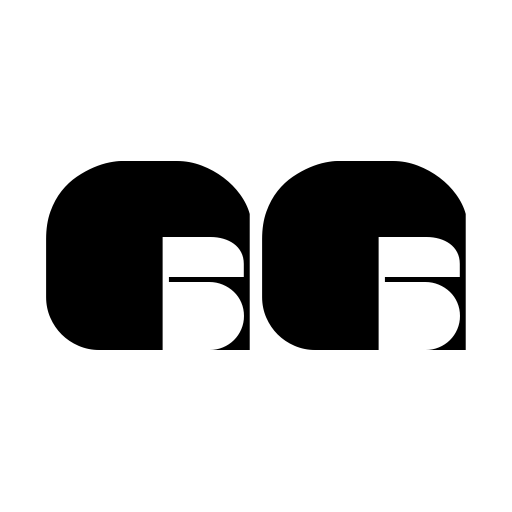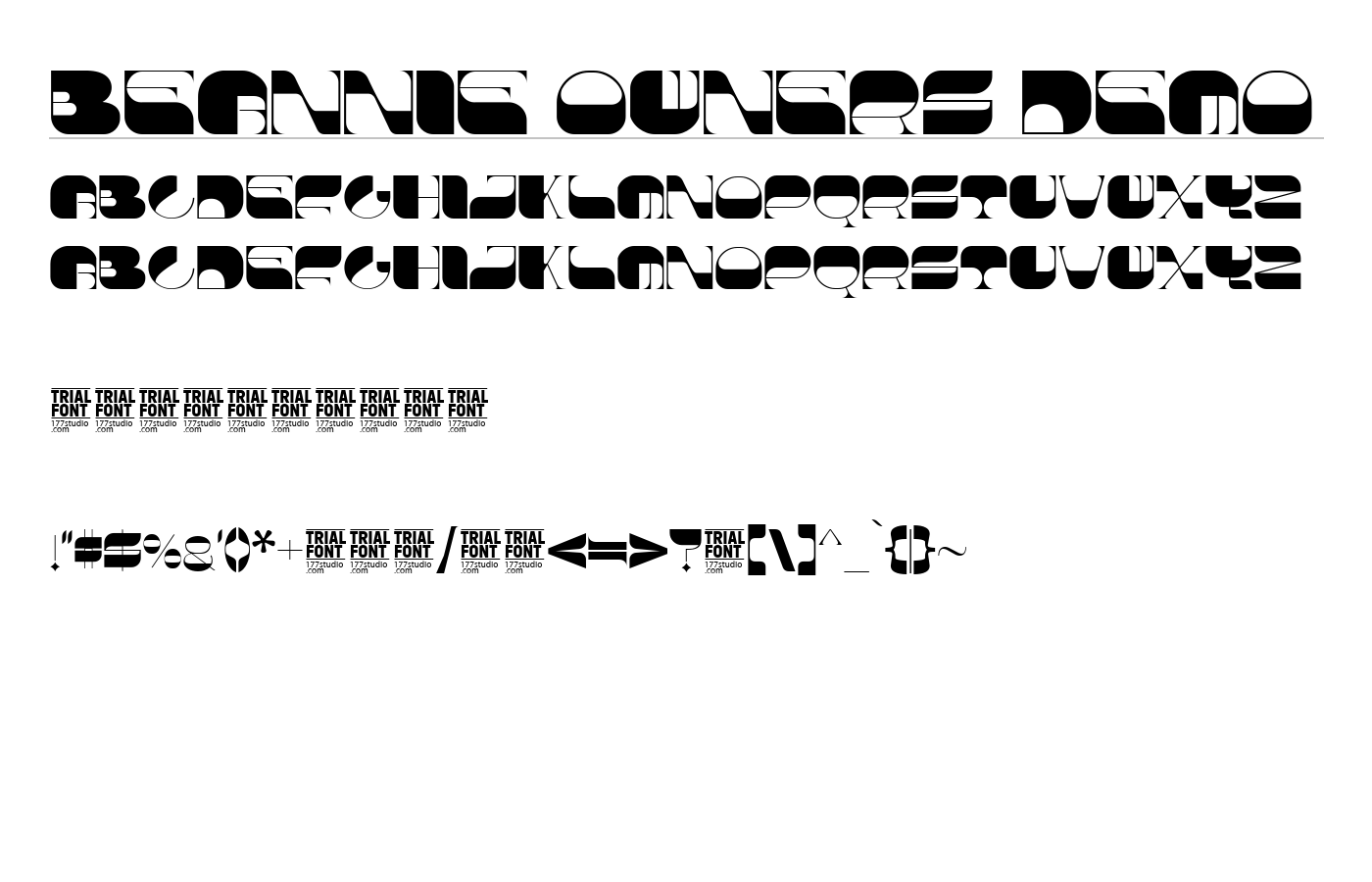
Beannie Owners Demo is a bold, modern display font characterized by its heavy weight and geometric shapes with a playful, cut-out style. Its unique letterforms, combining solid black segments with sharp, thin lines and curves, create a futuristic and eye-catching look perfect for striking headlines, logos, and creative branding projects. This font is ideal where a bold statement is needed, lending a stylish and contemporary vibe to posters, packaging, and fashion-oriented designs.
Beannie Owners Demo Font
About Beannie Owners Demo Font
| Font family | Beannie Owners Demo Font |
| Designer | 177Studio.com |